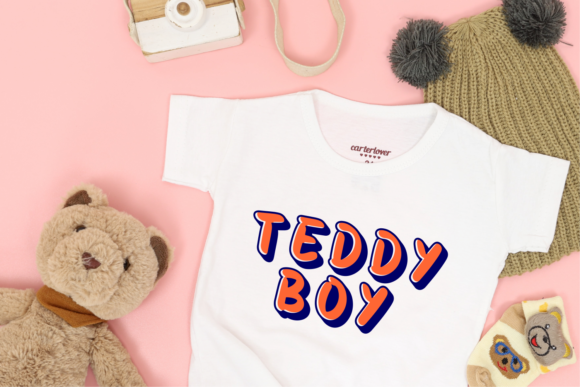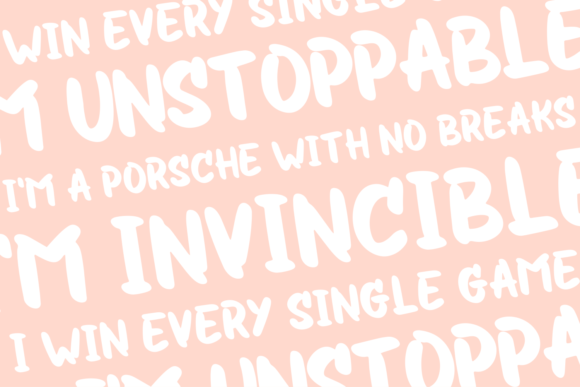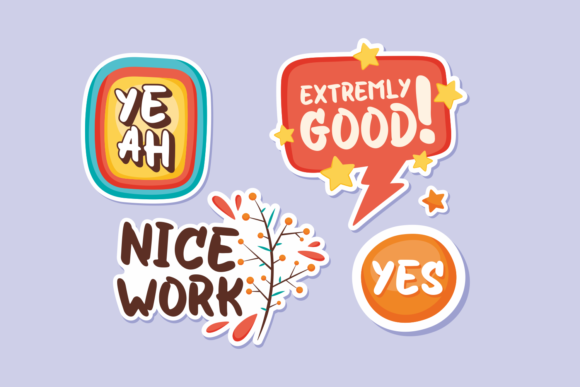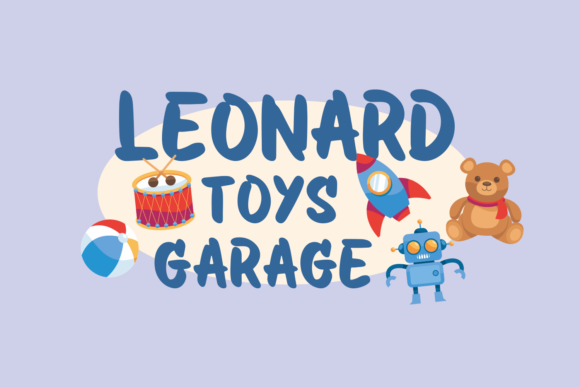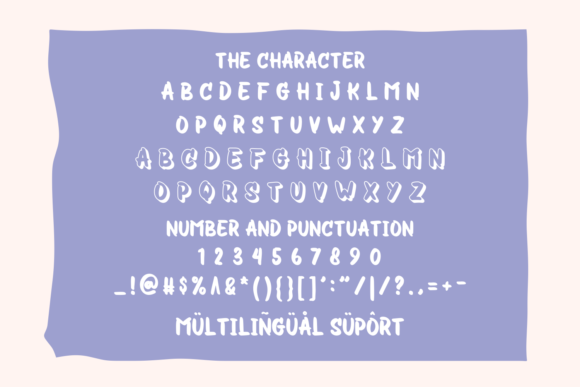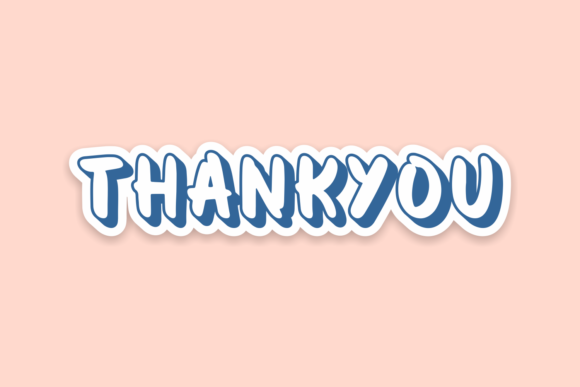
Introduction to Hitormis Font
Hitormis is a fancy and elegant handcrafted font that was created to impress your audience and make your branding shine.
Make your projects dance with this elegant and wonderful font wherever you use it .
Key Features of Hitormis Font
Why Choose Hitormis Font?
Hitormis Font offers exceptional quality and versatility, making it a valuable addition to your design toolkit. Whether you’re creating for personal projects or commercial use, Hitormis Font delivers professional results.